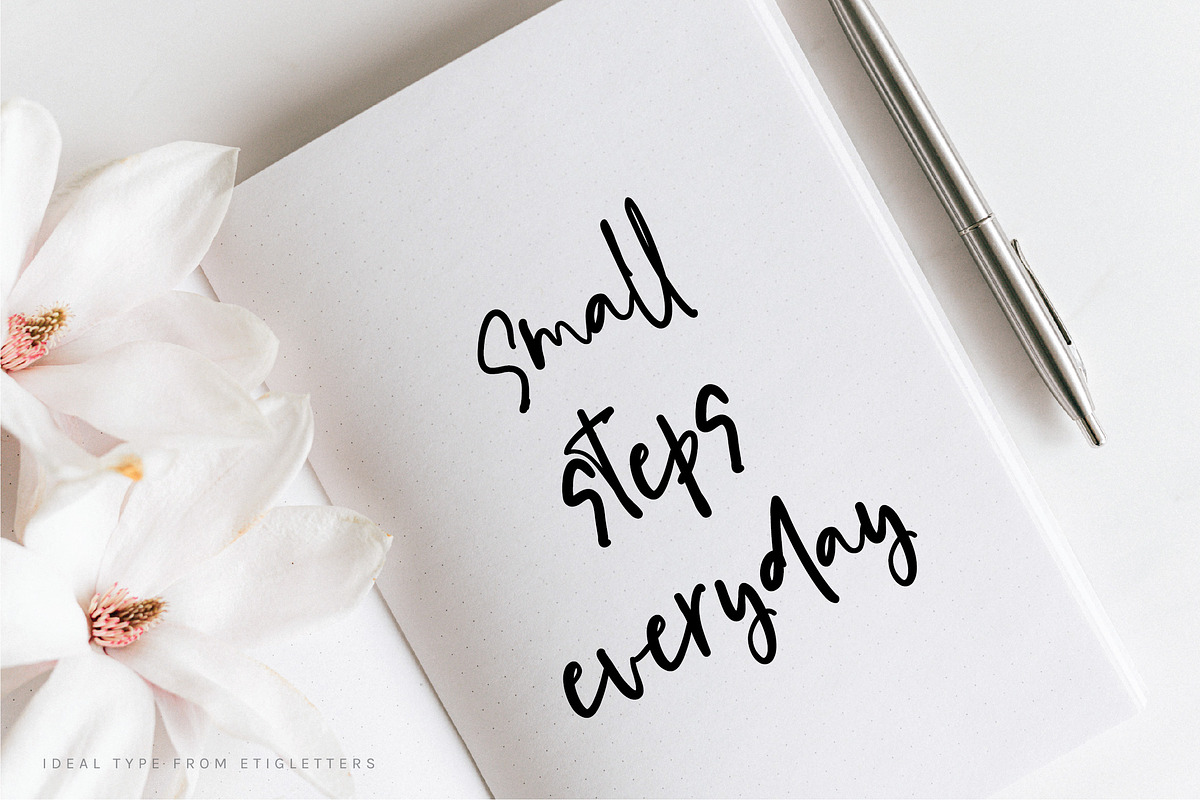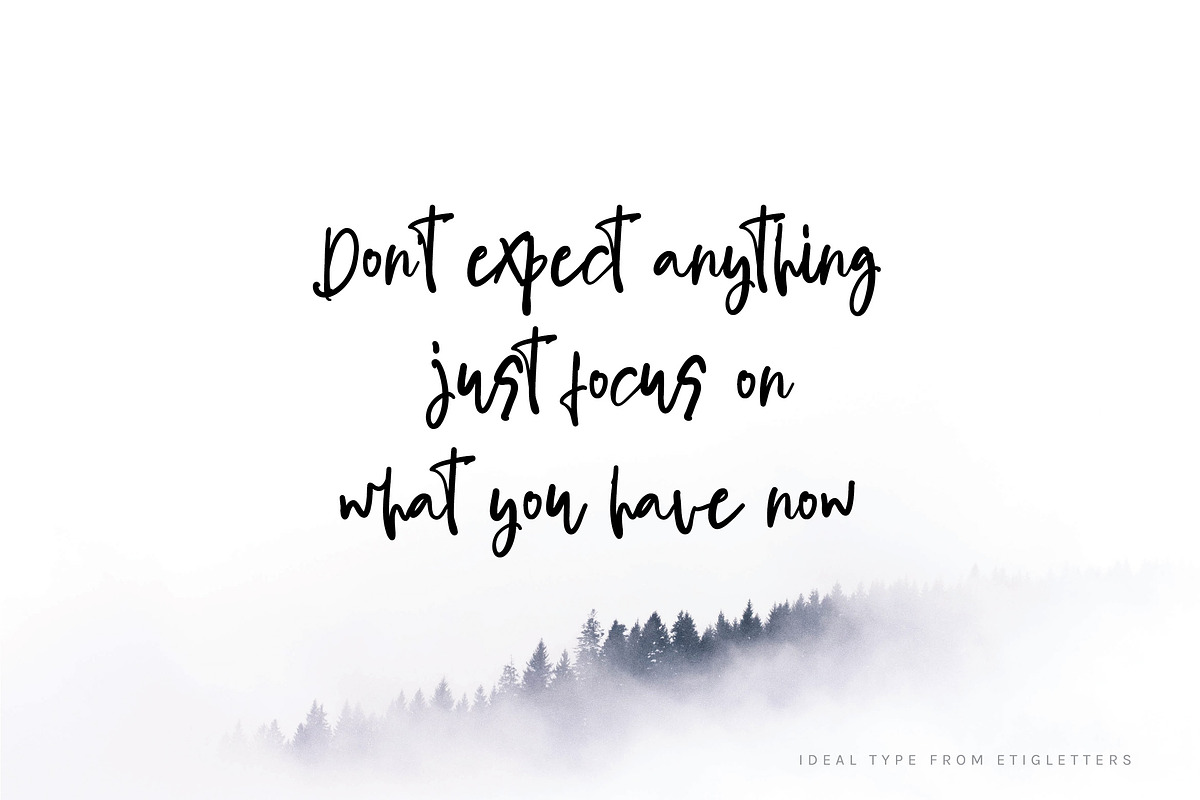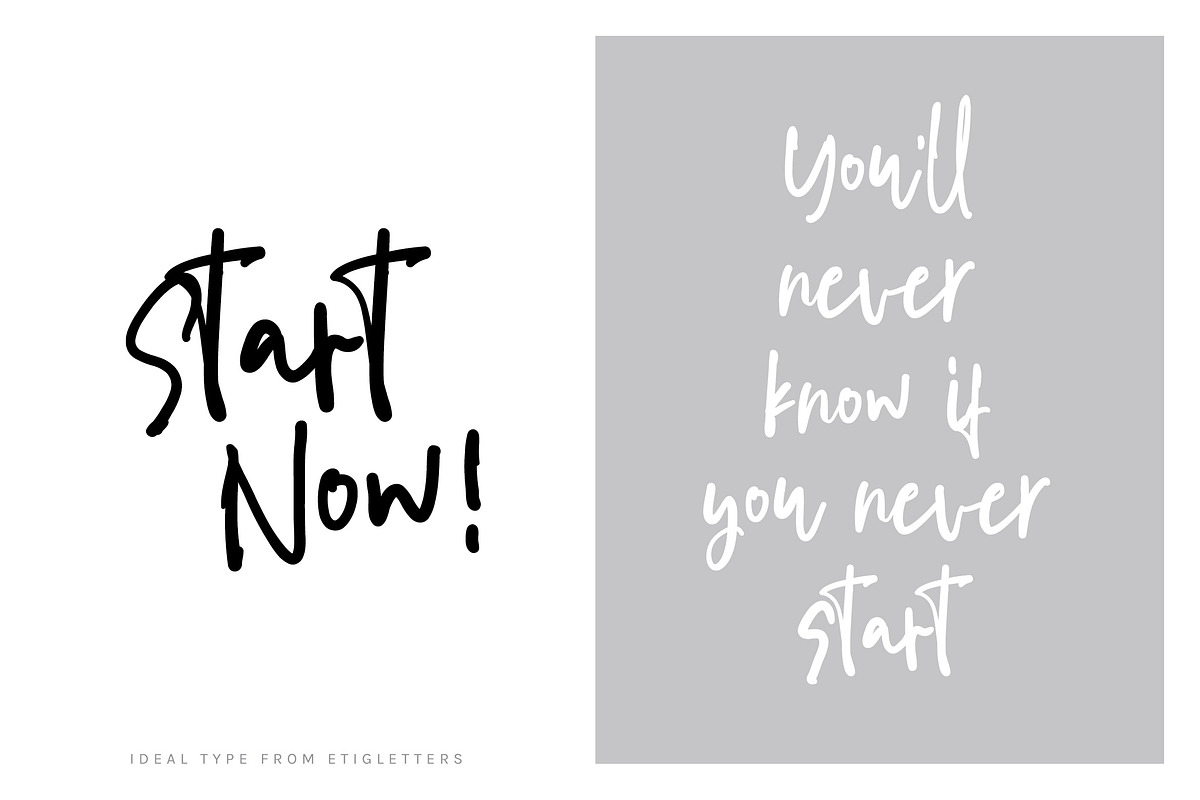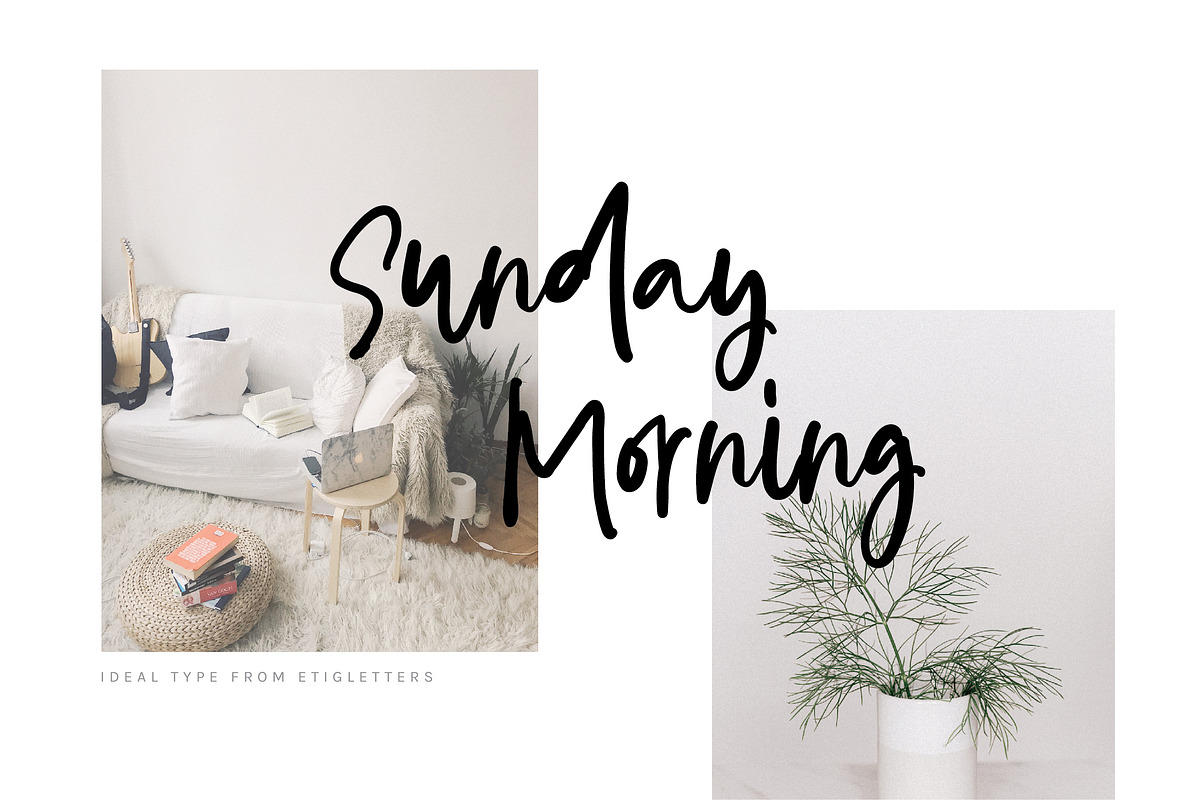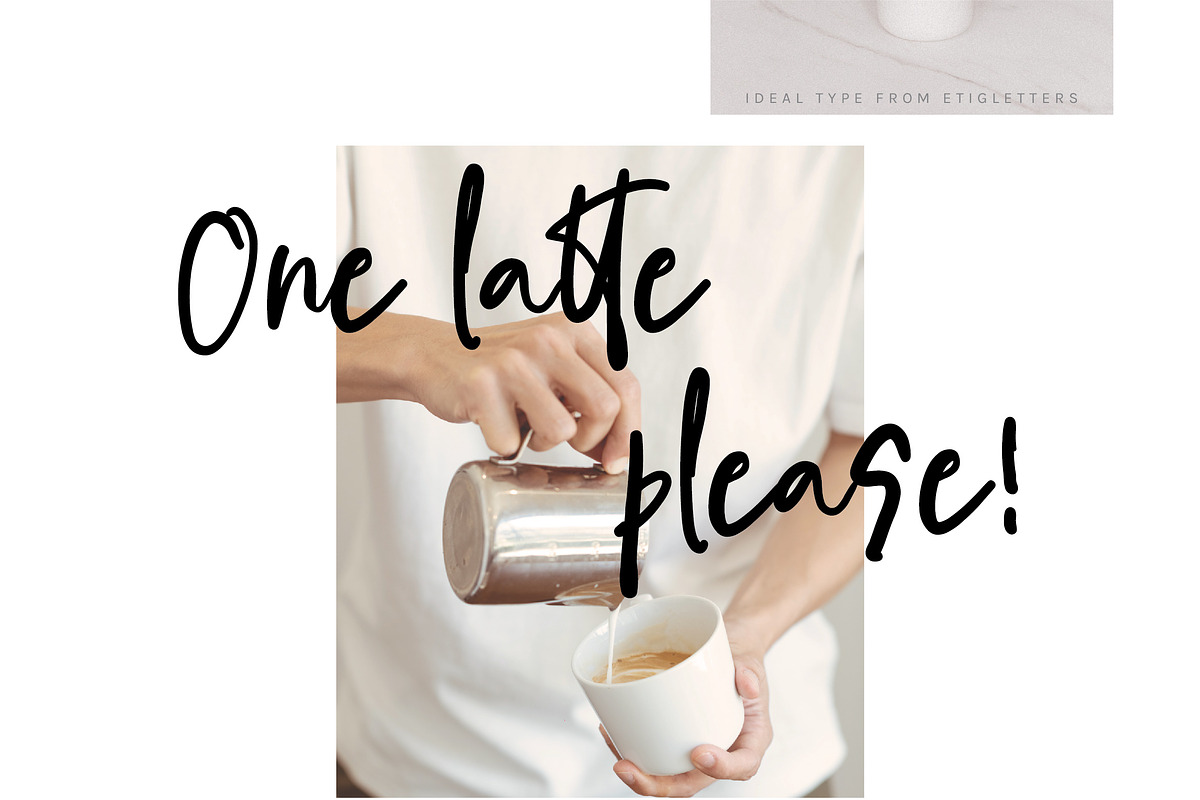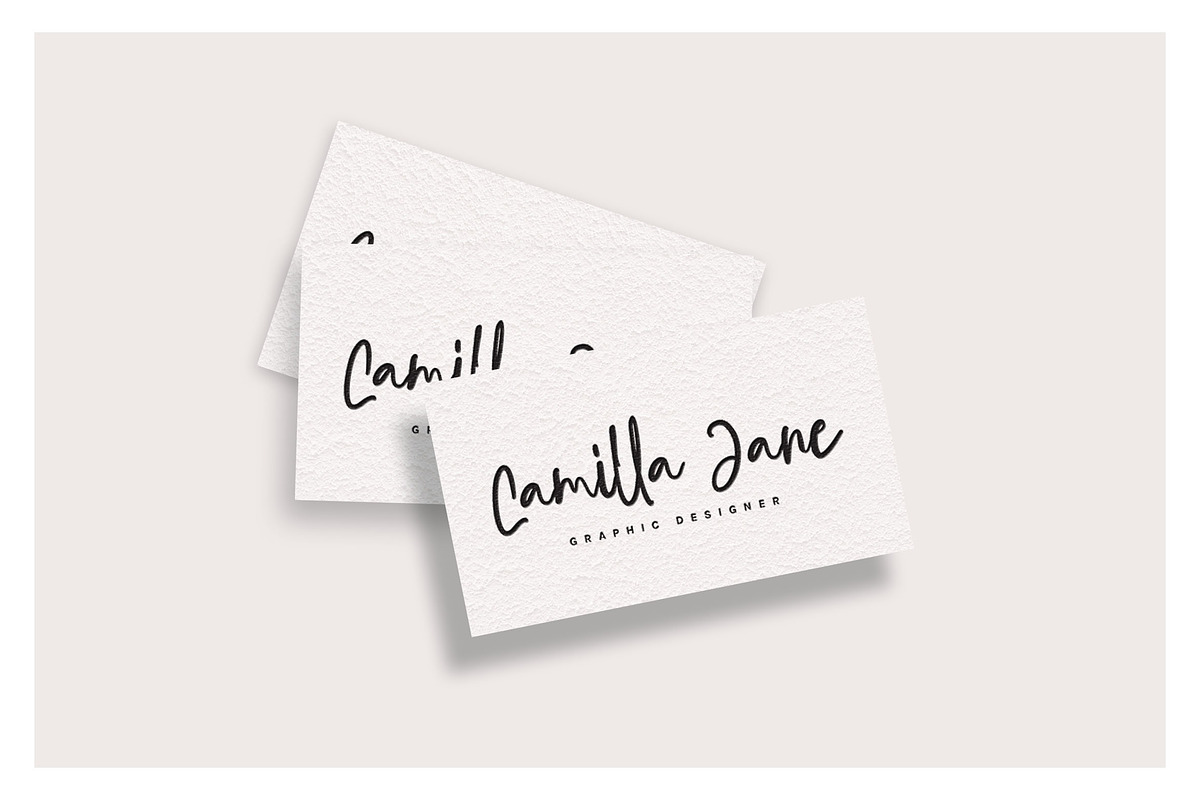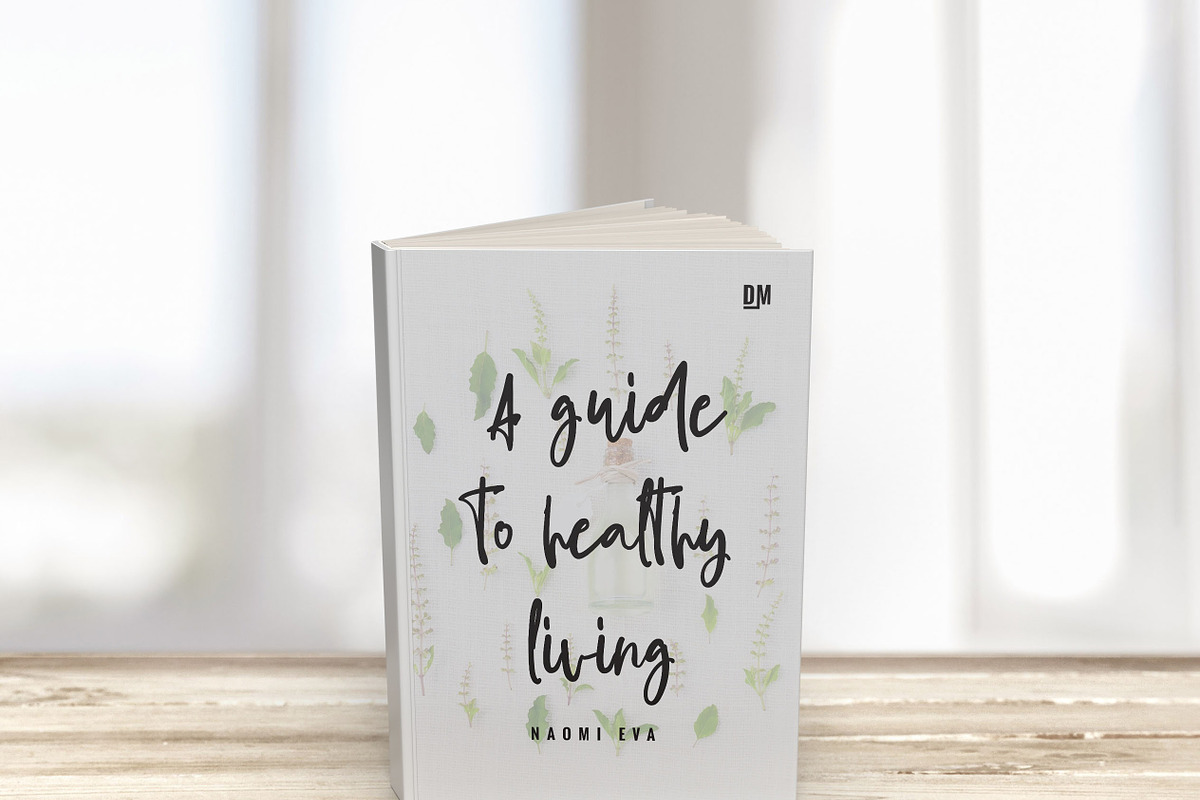
Ideal Type Casual Font
Ideal Type is a handwritten font with random shape font. Just like the name, this font ideal for branding and decorate your projects. It's perfect for logos, magazines, books, packaging, small business, stationery, novels, marketing, magazines, labels or any type of advertising purpose.
Ideal Type includes full set of uppercase and lowercase letters, numerals, and including ligatures. Ideal Type is also support multilingual and already PUA Encoded!
- Ideal Type includes full set of uppercase and lowercase letters, numerals, and including ligatures.
- Ideal Type is also support multilingual and already PUA Encoded!
Why Ideal Type Casual Font is worth a look
Ideal Type Casual Font by etigletters fits naturally into Branding, posters, packaging, typography.